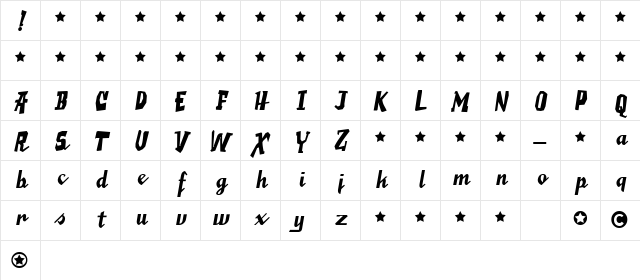
SaucyMillionaire Regular
Design Context for SaucyMillionaire
SaucyMillionaire is a composed and adaptable typeface that performs quietly and consistently across a wide range of design contexts.
Pro Tip: Use SaucyMillionaire in both headline and body roles to test its range before committing to a single application.